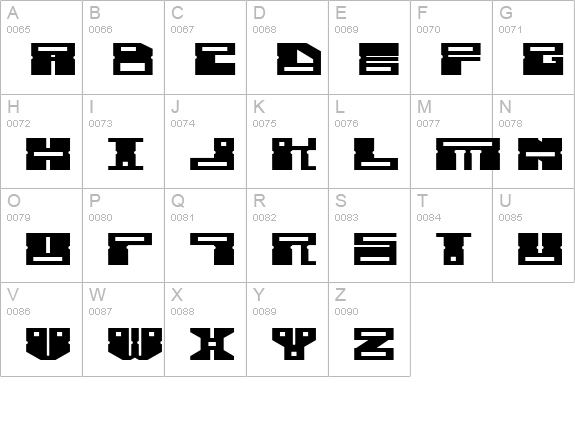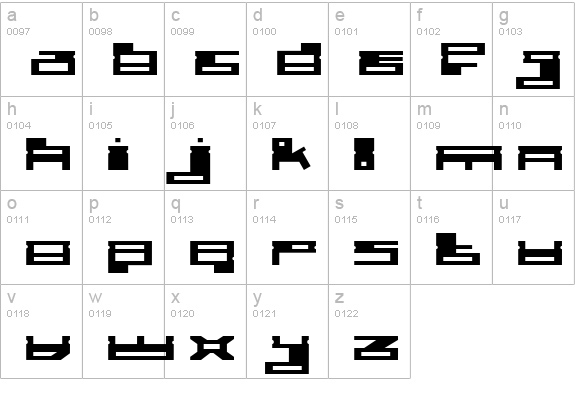
Ramm disc Font Details
Ramm disc font is a visually striking and modern typeface that is sure to make a bold statement in any design project. With its clean lines and geometric shapes, this font exudes a sense of confidence and professionalism. The sharp edges and intricate details of each letter give it a unique and edgy look that is perfect for creating attention-grabbing headlines, logos, and branding materials. What sets Ramm disc font apart is not only its stunning design but also the fact that it is available for free. That's right, you can freely download this font at FontsMarket.com, making it accessible to designers, creatives, and individuals alike. Whether you're a professional designer looking to add a touch of sophistication to your work or a hobbyist experimenting with typography, Ramm disc font is a versatile and valuable asset. The versatility of Ramm disc font is further enhanced by its extensive character set, which includes uppercase letters, lowercase letters, numbers, punctuation marks, and special characters. This ensures that you have all the tools you need to bring your creative vision to life and customize your designs to perfection. Not only does Ramm disc font look great on its own, but it also pairs well with a variety of other fonts, allowing you to create harmonious and visually appealing compositions. Its balanced proportions and legible design make it suitable for a wide range of applications, from print materials such as posters and brochures to digital designs like websites and social media graphics. In conclusion, Ramm disc font is a stunning and versatile typeface that is freely available to download at FontsMarket.com. With its modern design, extensive character set, and compatibility with other fonts, it is a valuable asset for designers and creatives looking to elevate their projects. So why wait? Download Ramm disc font today and let your creativity soar.